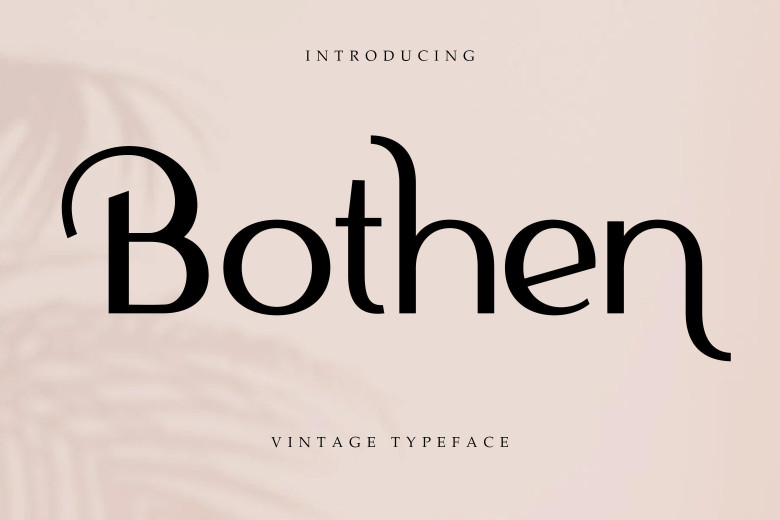
Bothen Font
Bothen Font is a display playful yet nostalgic font that offers a fantastic vintage look. This beautiful serif font is perfect to give your design that creative look. Bothen font is perfect not only for quotes but also for branding, merchandise, products, packaging, headlines, posters, handwriting, or just save someone’s gothic heart on Facebookor Instagram.